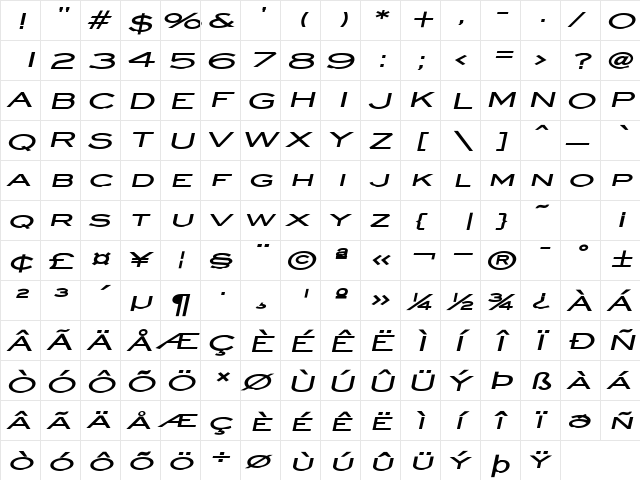
Eye glass Extended Bold Italic Font Preview
Design Context for Eye glass Extended Typeface
Eye glass Extended offers clean, dependable letterforms without strong stylistic allegiance, making it a practical choice for designers who need flexibility. The dynamic lean of this cut emphasises speed and emphasis in any layout. The heavy weight commands attention and anchors typographic hierarchies.
Pro Tip: Try Eye glass Extended for annotation and caption copy alongside an upright companion — the contrast in angle creates a dynamic but ordered typographic system.